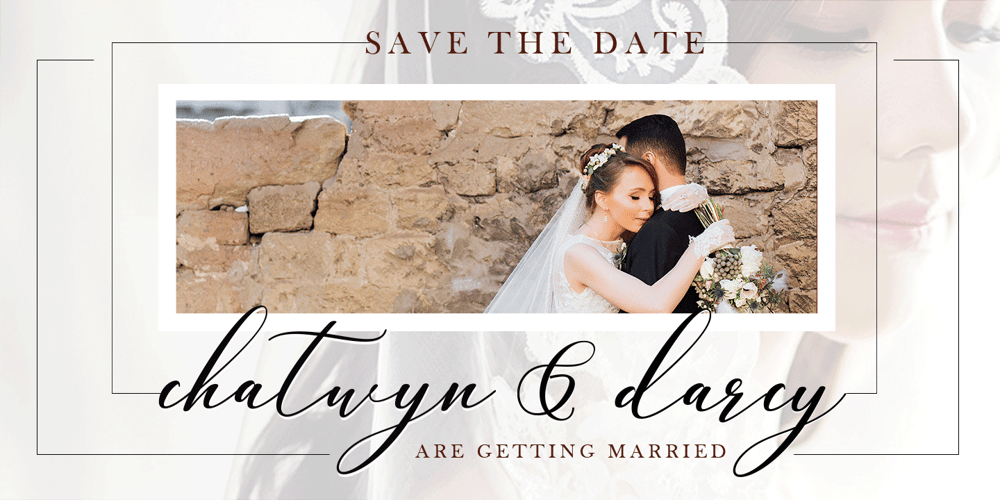
Cadina Font Family was designed by Nasrullah and published by Sulthan Studio. Cadina contains 1 styles and family package options. Introducing Cadina, an elegant new font! This font is especially created for those of you who need a touch of elegance to design your projects next with perfect results and amazing. Cadina is a very beautiful and interesting script and comes with a perfect line for use for various purposes. Like titles, signatures, logos, correspondence, wedding invitations, letterheads, nameplate, labels, bulletins, posters, badges, Branding, Greeting Cards, etc. Cadina is built with OpenType features and includes start and end. It comes with OpenType Stylistic set, Initial, swashes, ligatures and everything to add a touch to your design and also supports other languages 🙂